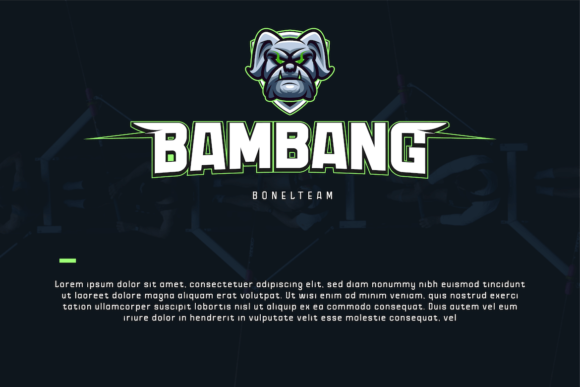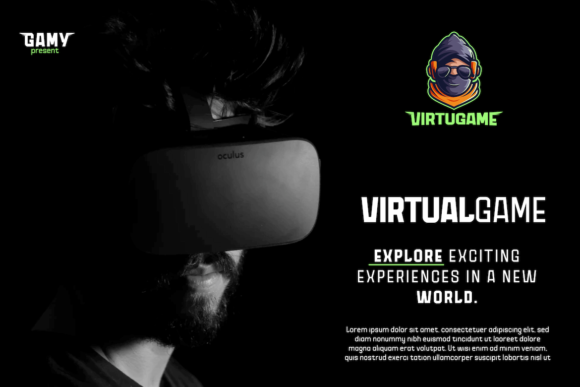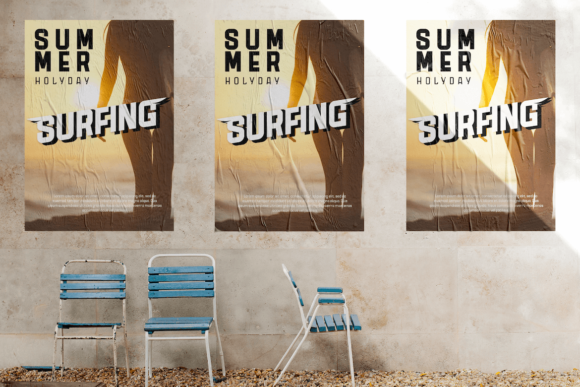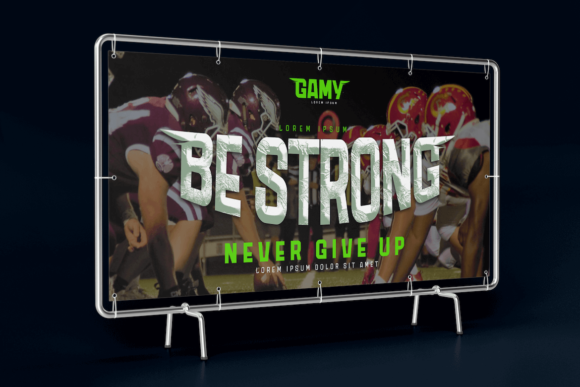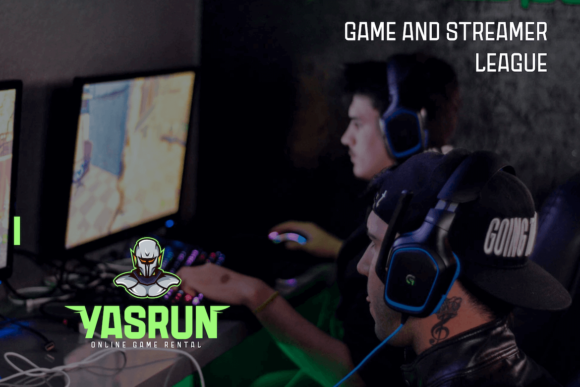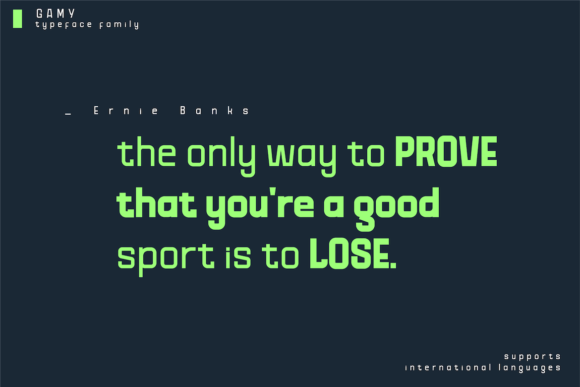
Introduction to Gamy Font
Gamy is a cool, bold and unique display font.
It will look stunning on any poster flyer or print Use this font for your designs and explore its endless possibilities.
Key Features of Gamy Font
Why Choose Gamy Font?
Gamy Font offers exceptional quality and versatility, making it a valuable addition to your design toolkit. Whether you’re creating for personal projects or commercial use, Gamy Font delivers professional results.